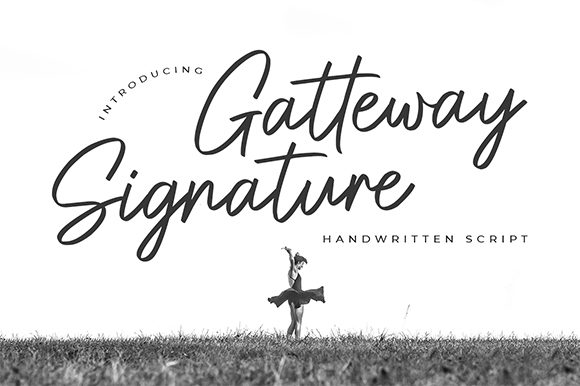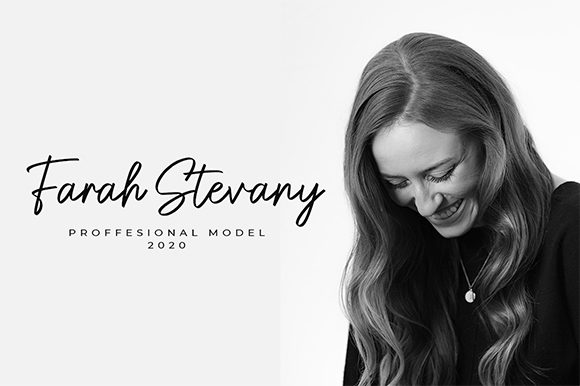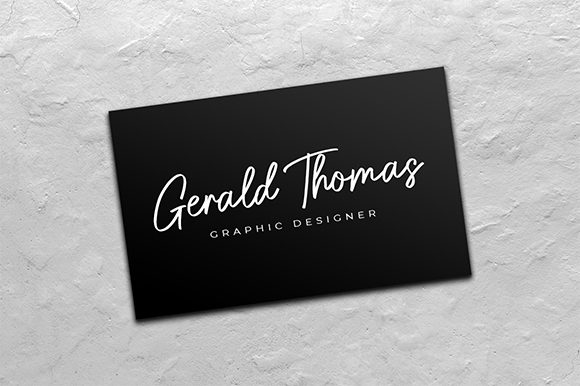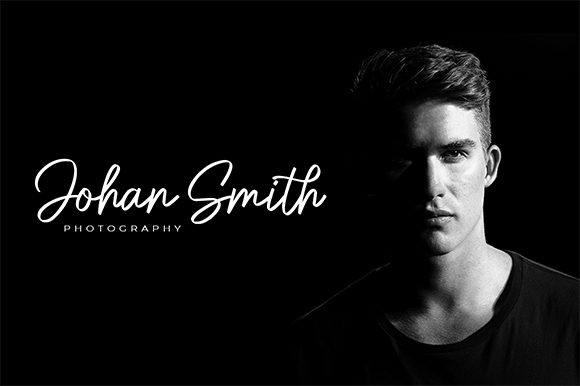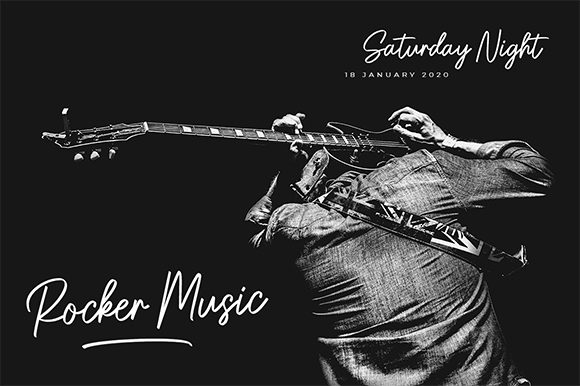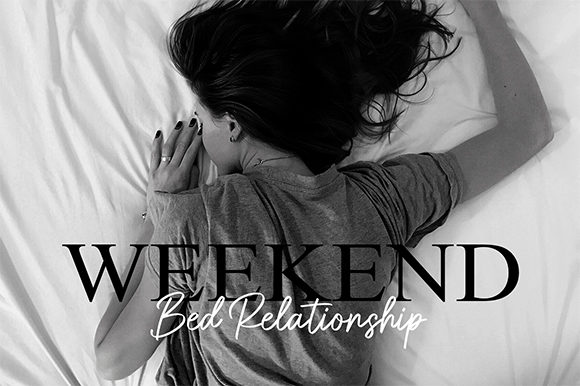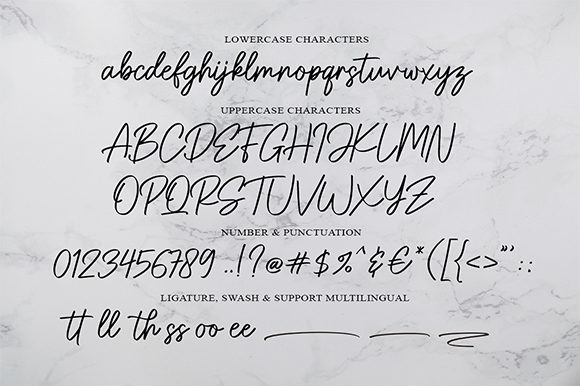
HomeScript FontsGatteway Font Script Fonts Gatteway Font FacebookXPinterestWhatsApp Gatteway Font Poster 2 Gatteway Font Poster 3 Gatteway Font Poster 4 Gatteway Font Poster 5 Gatteway Font Poster 6 Gatteway Font Poster 7 Gatteway Font Poster 8 About Gatteway Font Gatteway is a stunning signature font with a bold vibe. It will turn any design idea into a true standout. DOWNLOAD NOW People also explored Oh Twenty Font Hunzello Black Font Misstho Font Farmhouse Font Finchbird Font Pochan Font Ceclow Font Simple Planner Font Karnika Font 353 0 TagsGatteway Font Previous articleLeganttis FontNext articleLast Kiss Font LEAVE A REPLY Cancel reply Comment: Please enter your comment! Name:* Please enter your name here Email:* You have entered an incorrect email address! Please enter your email address here Website: Save my name, email, and website in this browser for the next time I comment. Personal Use Free Rothwell Personal Use Free Read more about this font Propaniac Personal Use Free Read more about this font Homelands Personal Use Free Read more about this font Baby Love Personal Use Free Read more about this font BLOG How to Cut Any Font on Cricut: Convert a Font to SVG (Free) Turn any font into a clean SVG so it cuts crisp on Cricut - a quick 3-step workflow using a free font-to-SVG tool. 5 Fonts That Will Dominate Design Trends in 2026 Elegant Wedding Invitation Fonts – Handwritten & Script Fonts Free Fonts Risk: Why Free Fonts Can Be Dangerous for Designers